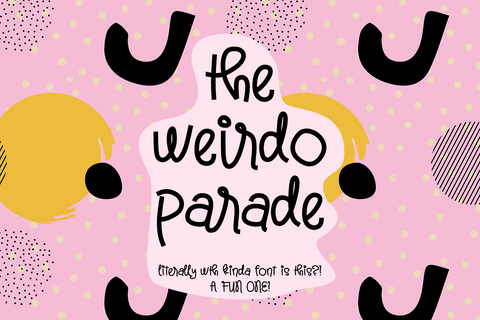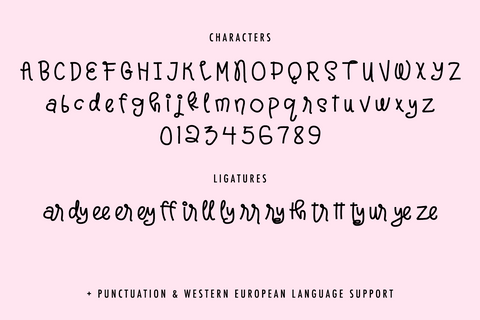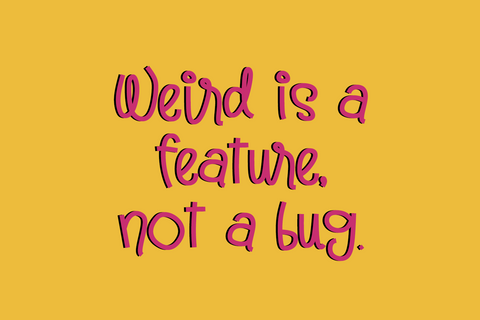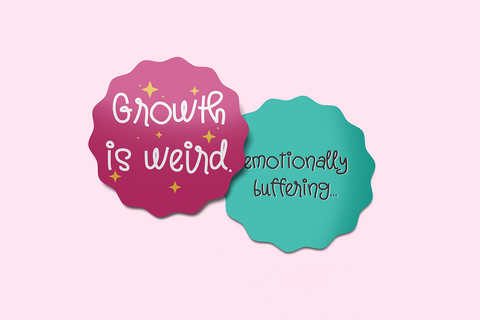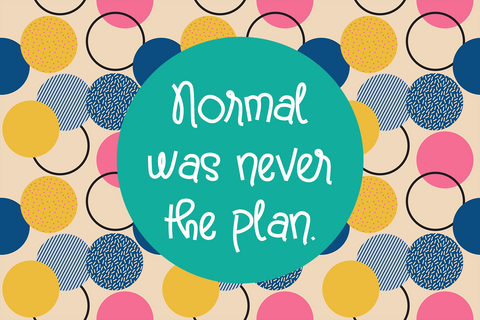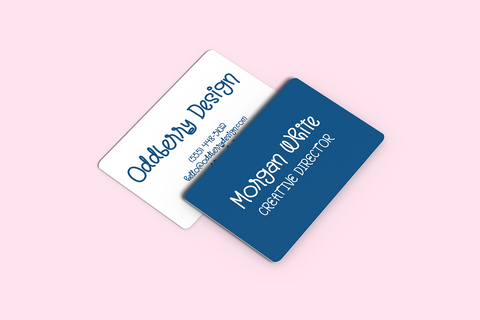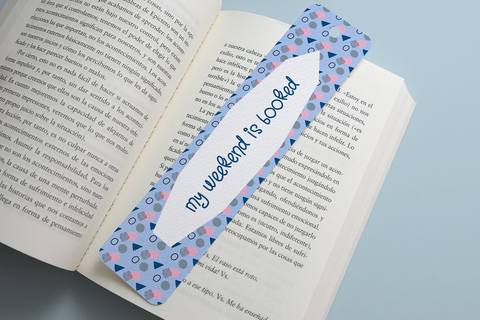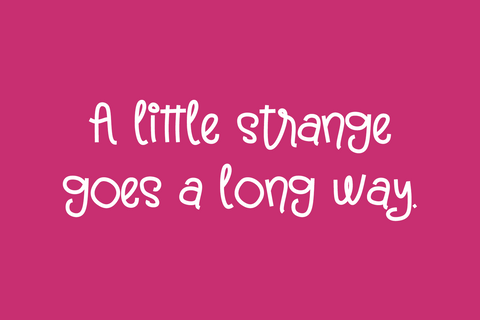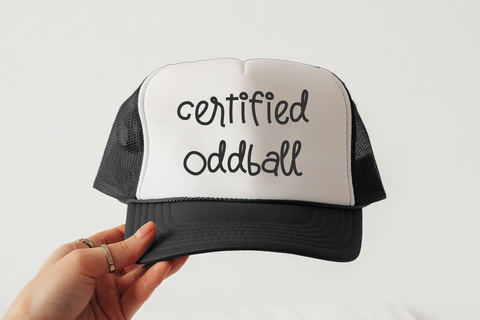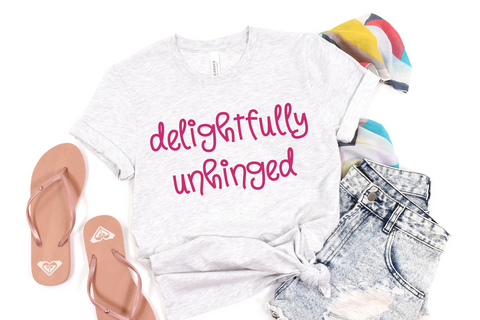
The Weirdo Parade Display Font
Welcome to The Weirdo Parade, I’m saving you a spot!
This playful display font is packed with personality: some letters lean, some have little curls, and the ligatures are super cute. It's whimsical without being messy, goofy without sacrificing readability, and clean enough to cut beautifully on your Cricut, Silhouette, or Glowforge. Despite all its delightful weirdness, every character has been carefully designed with smooth curves and clean edges for professional-quality results for any intended use.
The Weirdo Parade adds a fun and handmade feel to classroom decor, birthday shirts, nursery signs, stickers, tumblers, and personalized gifts.
This font is especially cute for:
• Cricut and Silhouette projects
• Glowforge laser engraving and cutting
• Stickers and planner accessories
• T-shirts and sweatshirts
• Classroom decor and bulletin boards
• Teacher resources and worksheets
• Nursery signs and baby shower decorations
• Birthday invitations and party decorations
• Kids' room decor
• Tote bags, mugs, and tumblers
• Handmade gifts
• Small business branding for children's products
• Logos and packaging
• Social media graphics
• Printable crafts and digital designs
The Weirdo Parade includes:
- full upper + lowercase characters
- numbers + punctuation
- 18 ligatures - ar, dy, ee, er, ey, ff, ir, ll, ly, rr, ry, th, tr, tt, ty, ur, ye, ze
- Western European language support - English, French, Spanish, Portuguese (Brazil), Portuguese (Portugal), Italian, German (Germany), German (Austria), Dutch, Danish, Swedish, Norwegian (Bokmål and Nynorsk), Finnish, Icelandic, Irish, Welsh